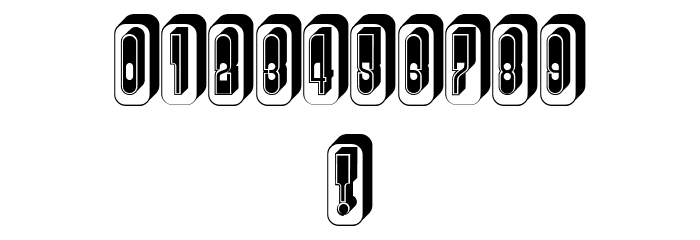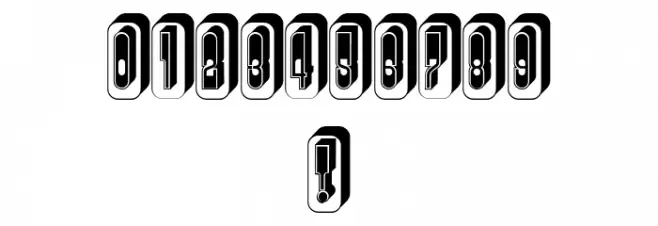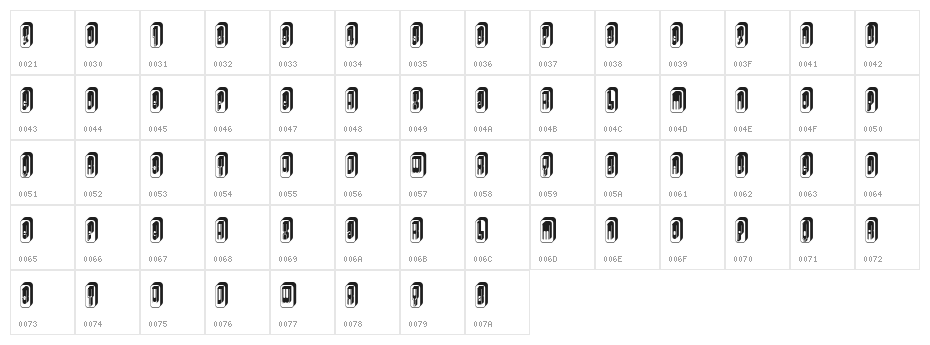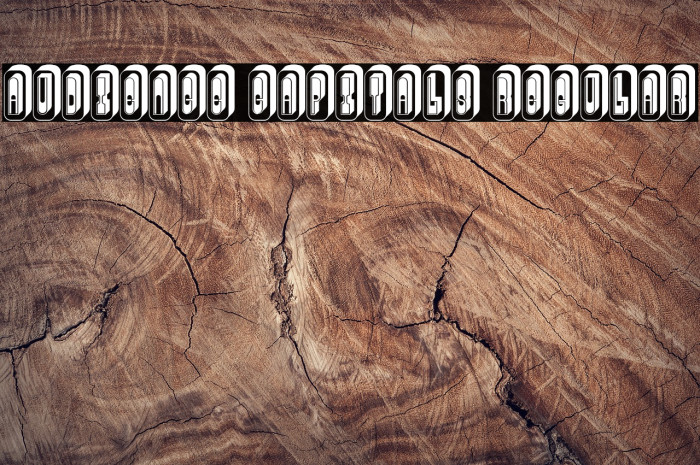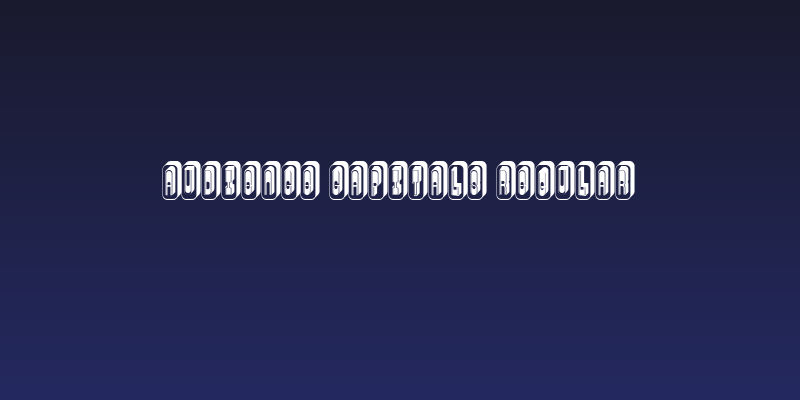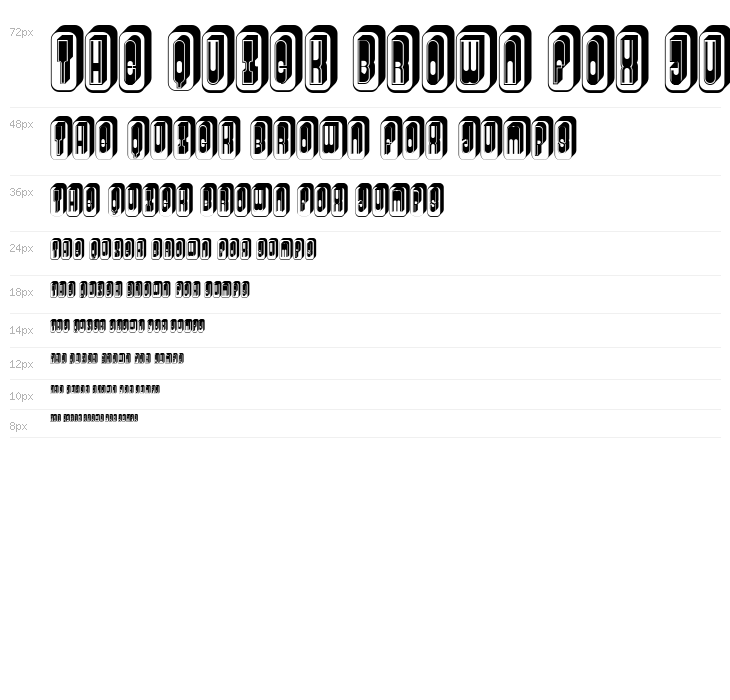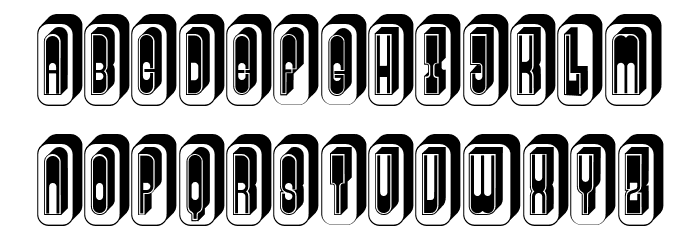
Audience Capitals Regular Font
Audience Capitals Regular Description
This font features a bold, three-dimensional design with a strong shadow effect that gives each character a distinct, block-like appearance. The letters are enclosed in a rectangular shape, enhancing their boldness and making them stand out. The style is reminiscent of vintage signage, with a modern twist that adds depth and visual interest. The characters are uniformly spaced, maintaining a consistent look across the alphabet. This font is particularly eye-catching and is designed to make a statement, suitable for projects that require a strong visual impact.
| Overall Style | Vintage, Modern |
| Proposed Projects | Ideal for posters, headlines, logos, and any design needing a bold, impactful typeface. |